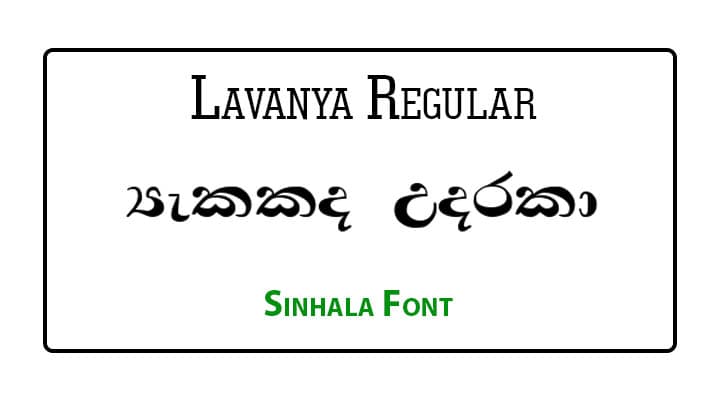
Lavanya Regular Sinhala Font Free Download. Lavanya Regular Font Keyboard Layout for Free. This is one of the most popular Sinhala Language fonts. This beautiful Font is widely used by Sri Lankan Sinhala Peoples. This is the most used Sinhala font in the print media, Photoshop designers, copywriters, and marketing agencies of all kinds. This is a great font which is used in graphic design, magazines, simple text, book printing and etc. The Following Sinhala Font is available for free download and ready to use for individual and commercial needs.
Preview of the font Lavanya Regular